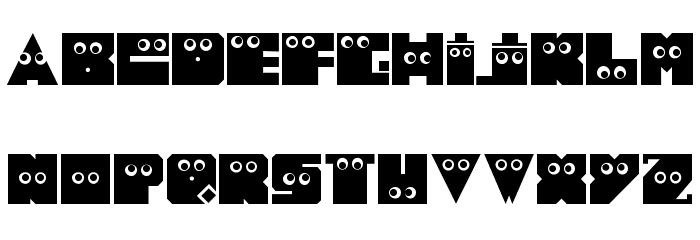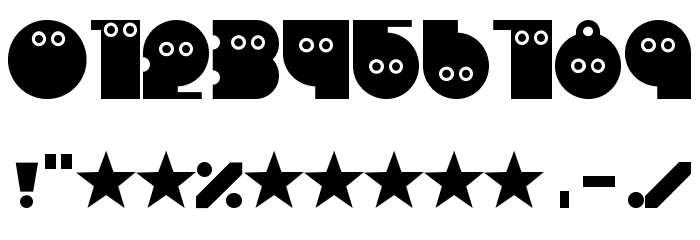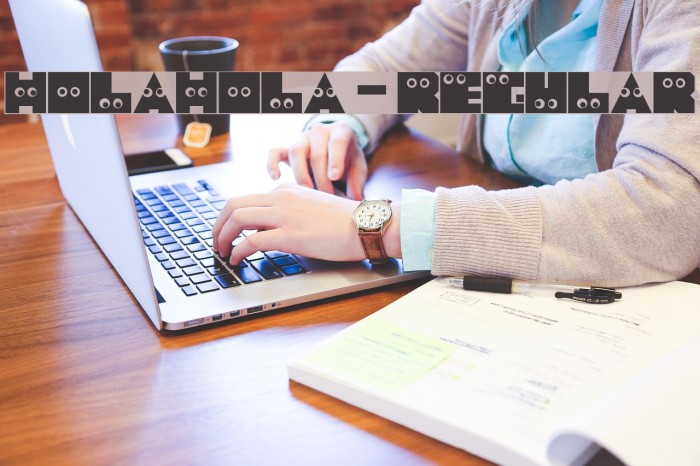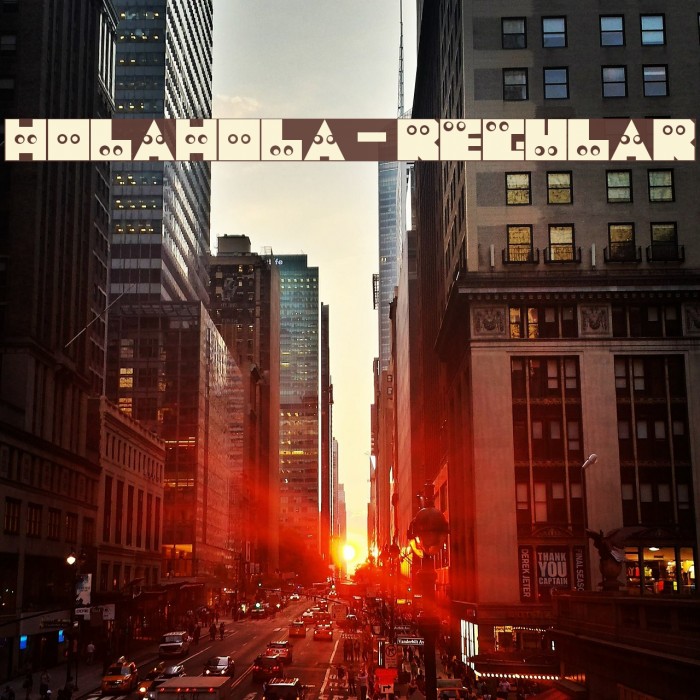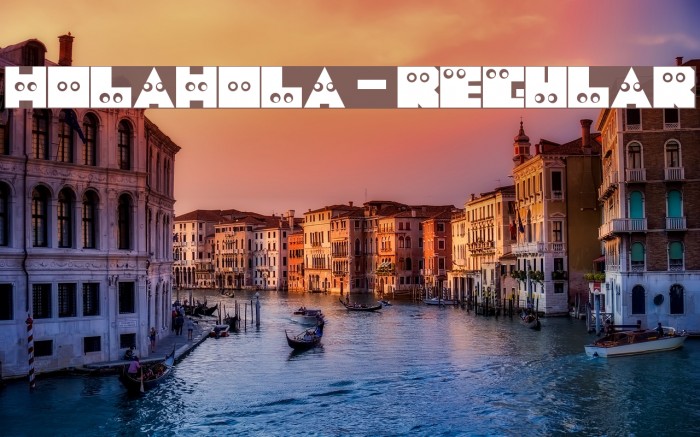
HolaHola-Regular Font
This playful and whimsical font features bold, geometric shapes with a unique twist—each character is adorned with a pair of eyes, giving it a lively and animated appearance. The uppercase and lowercase letters maintain a consistent style, with sharp angles and a blocky structure that adds a sense of fun and creativity. The numbers and special characters follow the same design principles, ensuring a cohesive look across all elements. This font is perfect for projects that require a touch of humor and personality, making it ideal for children's books, playful branding, or eye-catching headlines.
A playful, eye-adorned geometric font with bold, blocky characters.
- Proposed Projects: Ideal for children's books, playful branding, and eye-catching headlines.